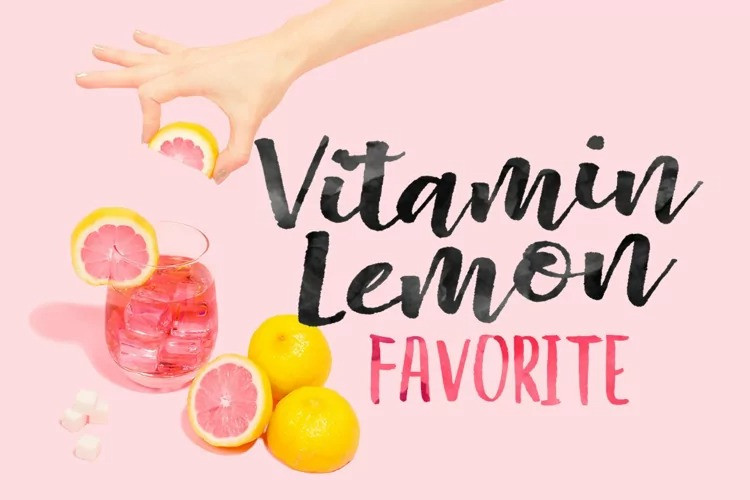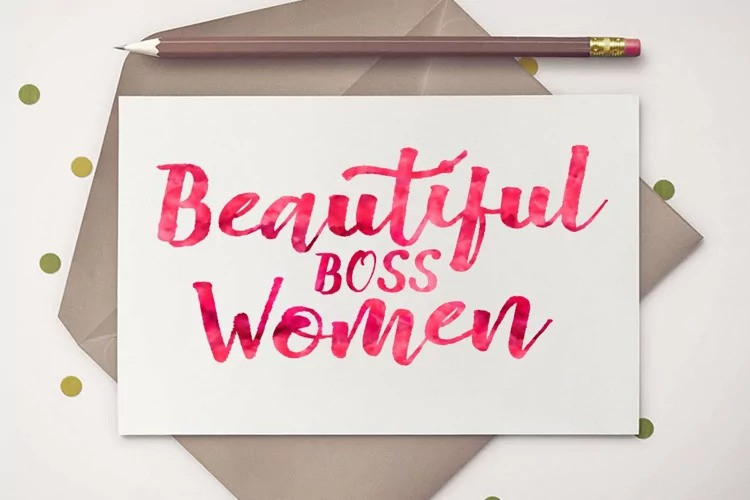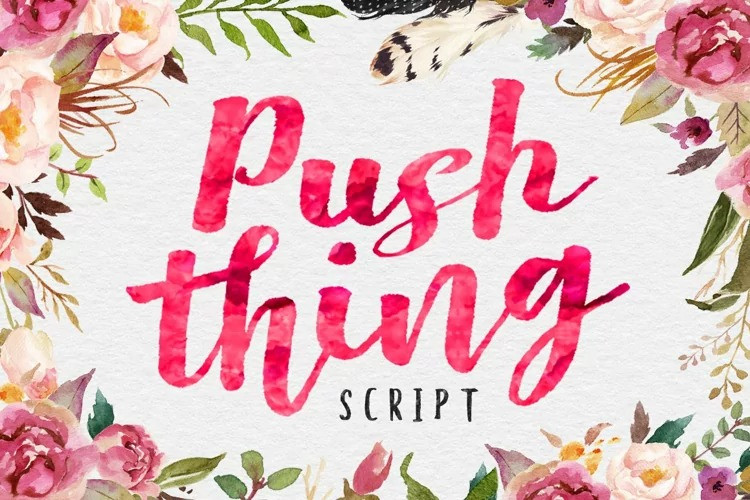
Pust Thing Font
Pust Thing Script Font is a beautiful, unique handpainted script, very suitable for your design needs, also has several alternatives & ligatures.